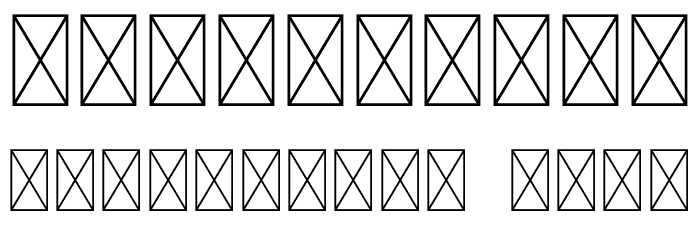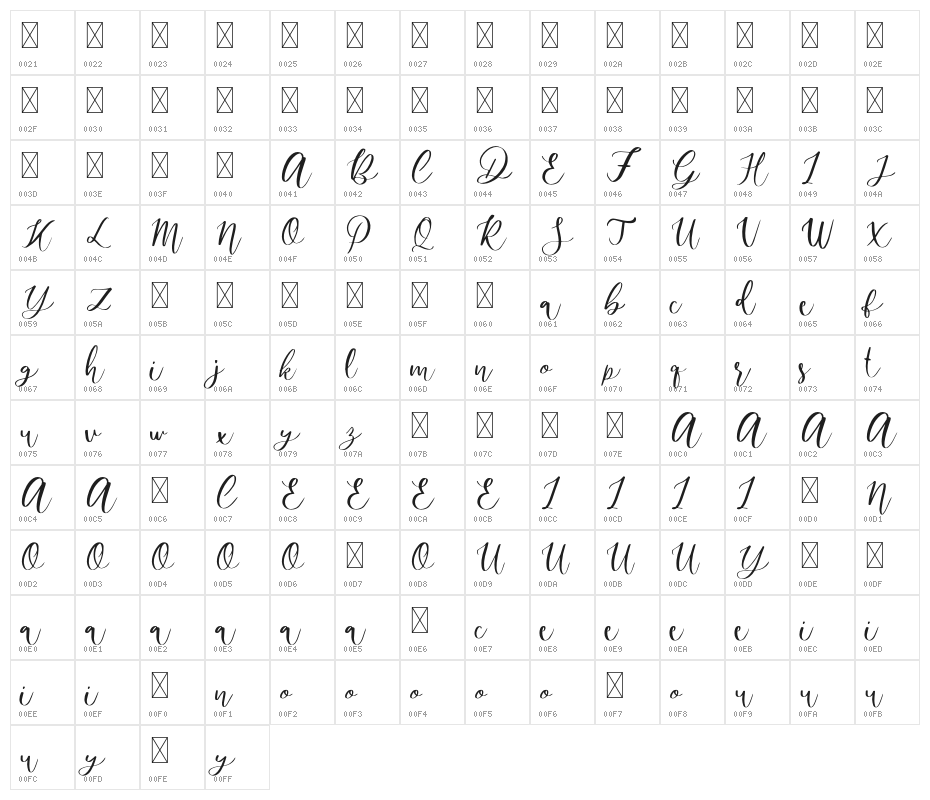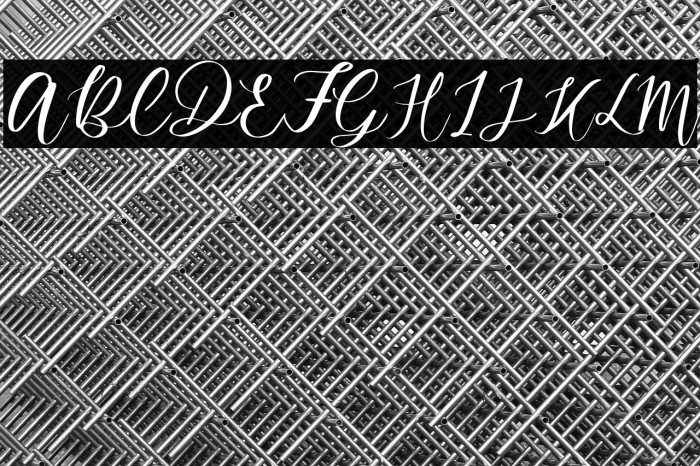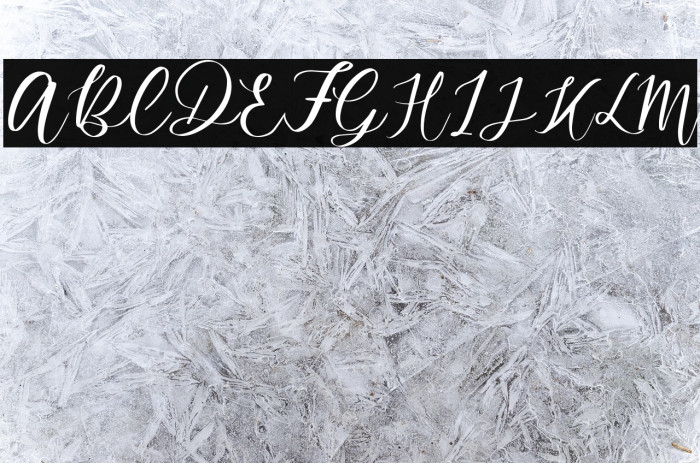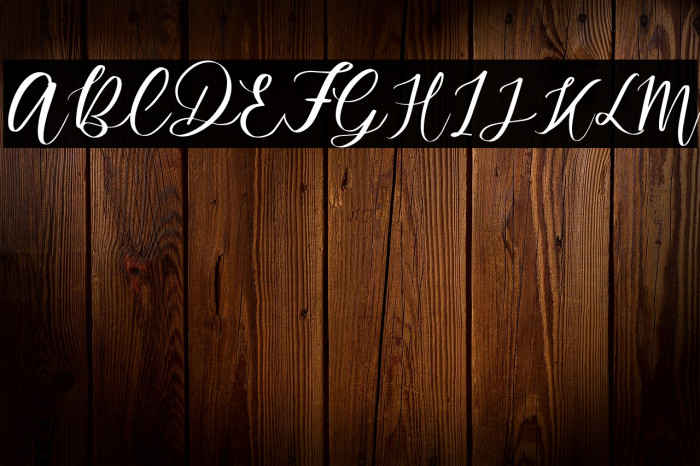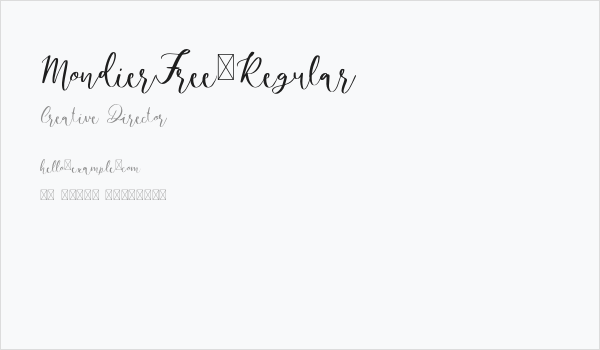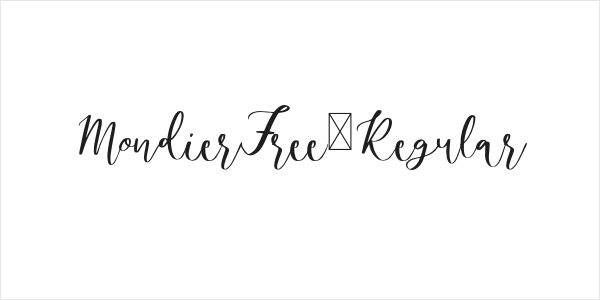
MondierFree-Regular Font
MondierFree-Regular Description
This elegant script font features a flowing, cursive style with smooth, connected strokes that mimic the fluidity of handwriting. The uppercase letters are characterized by their graceful loops and swirls, while the lowercase letters maintain a consistent rhythm and balance. The font exudes a sense of sophistication and charm, making it ideal for projects that require a personal touch. The absence of special characters suggests a focus on alphabetic and numeric characters, enhancing its suitability for decorative purposes.